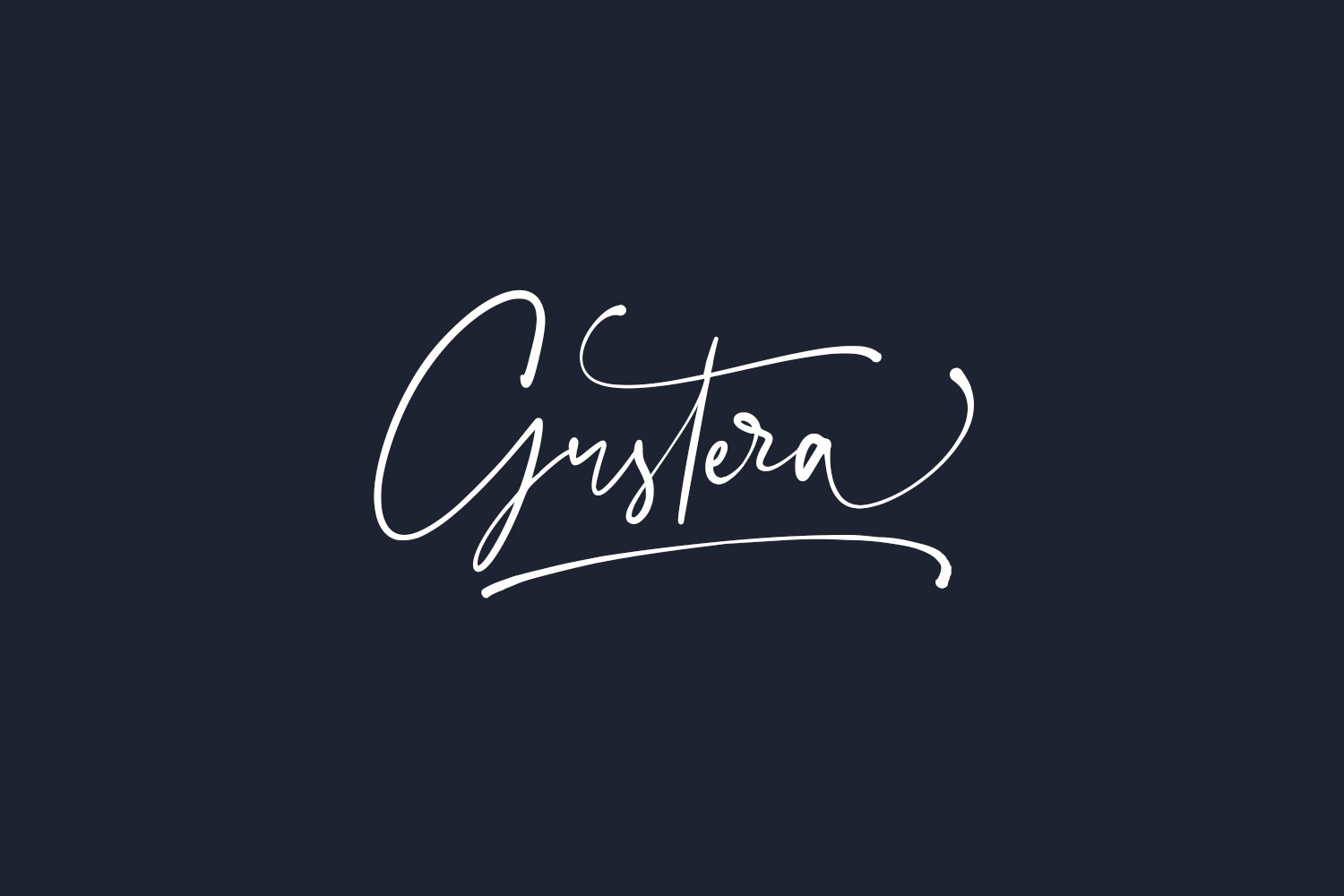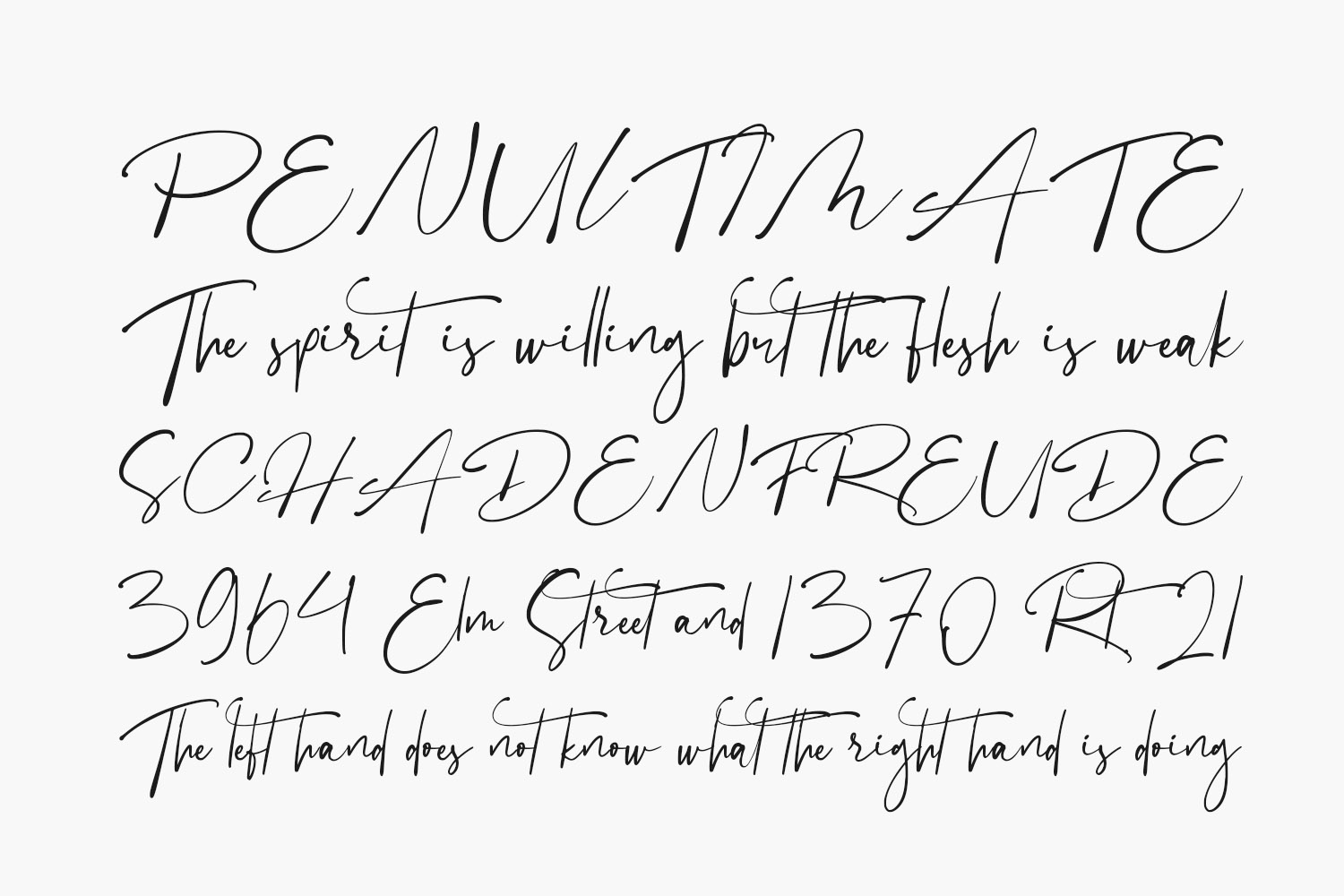
Gustera Free Font is a thin and beautiful handwritten font. Its distinct and well-rounded letters make this font a masterpiece. Fall in love with its incredibly versatile style and use it to create spectacular designs was designed by Vultype and is free for personal use only. Please purchase the full version for commercial use.